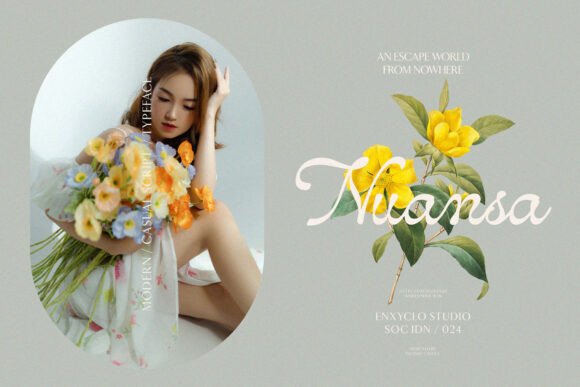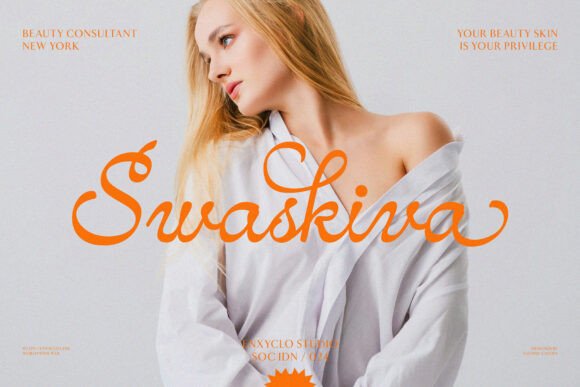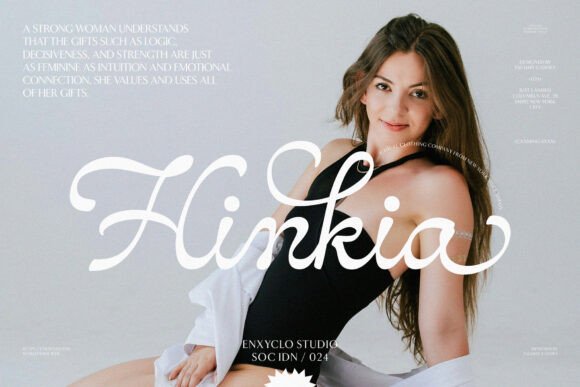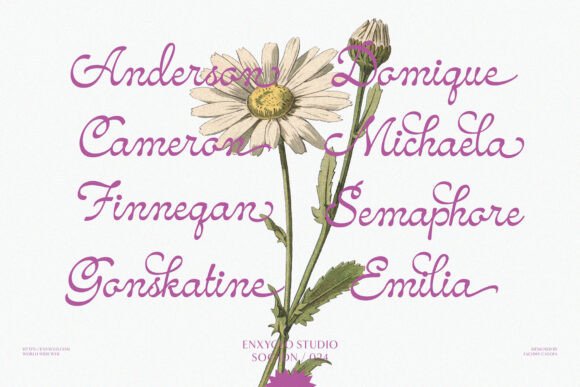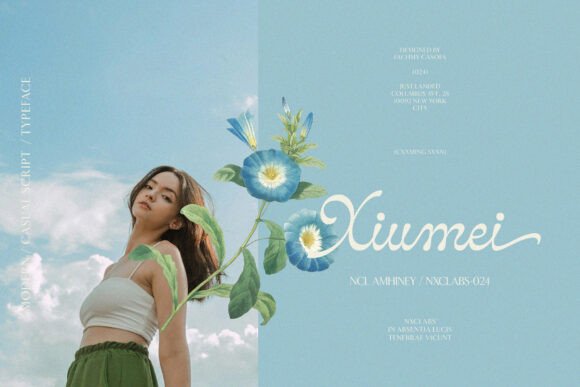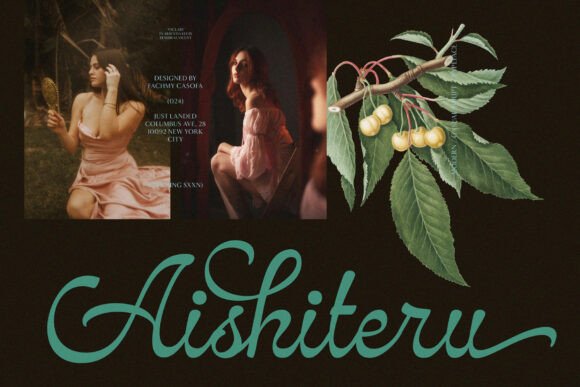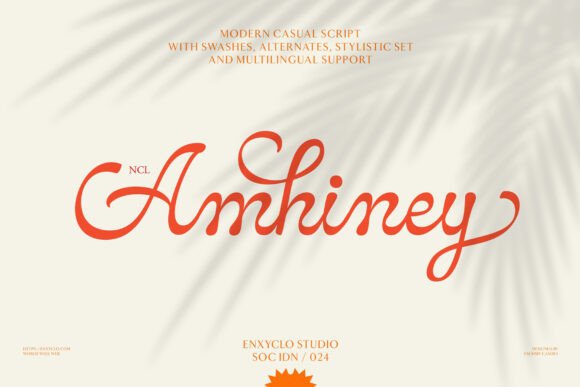
Introducing Amhiney Font: Elevate Your Designs with Modern Elegance
In the world of typography, a font can make or break a design. It’s the perfect blend of style, elegance, and creativity that brings a project to life. If you’re a designer, crafter, or simply a creative enthusiast, you’re in luck! We’re excited to introduce Amhiney Font, a modern casual script display font that’s about to become your new favorite.
What is Amhiney Font?
Amhiney Font is a stunning, handcrafted script display font that’s designed to make a statement. Its modern and casual vibe makes it perfect for a wide range of creative projects, from digital ads and magazines to website headers, posters, branding, and logos. With Amhiney, you can add a touch of sophistication and elegance to your designs, making them stand out from the crowd.
Key Features of Amhiney Font
- Modern Casual Script: Amhiney boasts a fresh, modern take on traditional script typography. Its casual vibe makes it perfect for designs that require a friendly, approachable feel.
- Display Font: Designed specifically for display purposes, Amhiney shines in large point sizes, making it ideal for headlines, titles, and promotional materials.
- Versatile: Whether you’re working on a digital project or a print design, Amhiney adapts seamlessly, ensuring your creation looks stunning across various mediums.
- Elegant and Refined: With its smooth lines and flowing curves, Amhiney exudes elegance, making it perfect for designs that require a touch of sophistication.
Why Choose Amhiney Font?
Amhiney Font is more than just a typeface; it’s a design solution that can elevate your creative projects to new heights. Here are a few reasons why Amhiney should be your go-to font:
- Unique and Eye-catching: In a sea of generic fonts, Amhiney stands out with its distinctive style, capturing the attention of your audience and setting your design apart.
- Time-Saving: With Amhiney, you can achieve professional-looking results without spending hours on intricate design work. Its ready-to-use format makes it easy to integrate into your projects.
- Highly Versatile: From fashion and beauty to technology and lifestyle, Amhiney adapts effortlessly to various themes and topics, making it a valuable addition to your font library.
Perfect for Various Applications
Amhiney’s flexibility makes it suitable for a wide range of applications, including:
- Headlines and Titles: Make a bold statement with Amhiney’s elegant script, perfect for headlines, titles, and captions.
- Digital Ads: Grab attention and drive engagement with Amhiney’s modern charm in your digital advertisements.
- Magazines and Editorials: Add a touch of sophistication to your magazine and editorial designs with Amhiney’s refined typography.
- Websites and Blogs: Enhance your online presence with Amhiney’s clean and elegant design, perfect for website headers and blog titles.
- Posters and Flyers: Create eye-catching promotional materials with Amhiney’s bold and stylish script.
- Branding and Logos: Establish a strong brand identity with Amhiney’s unique and memorable typography.
In conclusion, Amhiney Font is a game-changer for designers and crafters looking to elevate their creative projects. Its modern casual script display font offers the perfect blend of elegance, versatility, and style, making it an essential addition to your font library. Whether you’re working on a digital or print project, Amhiney is sure to bring your creative ideas to life and set your designs apart from the rest.